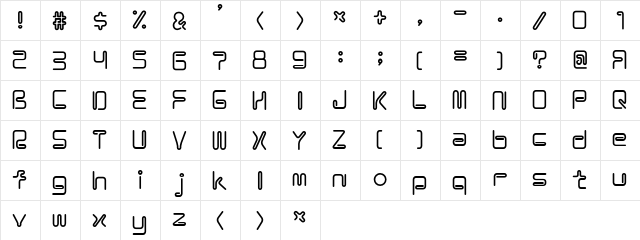
Coil Bold
Design Context for Coil Typeface
Coil is a composed and adaptable typeface that performs quietly and consistently across a wide range of design contexts. The heavy weight commands attention and anchors typographic hierarchies.